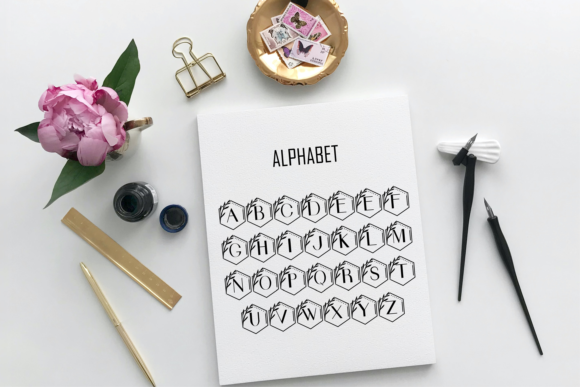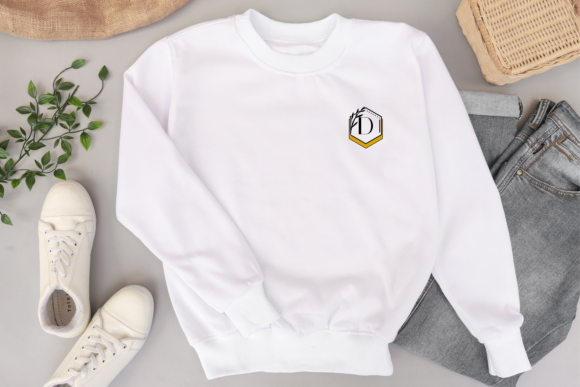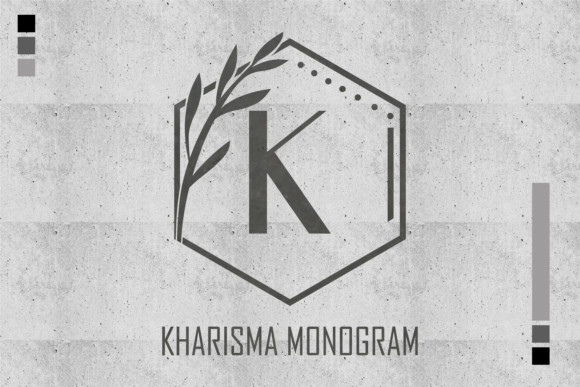
Introduction to Kharisma Monogram Font
Kharisma Monogram is a modern and unique decorative font.
It looks amazing on wedding invitations, thank you cards, quotes, greeting cards, logos, business cards and any other designs that require a personalized touch You will be amazed by the result.